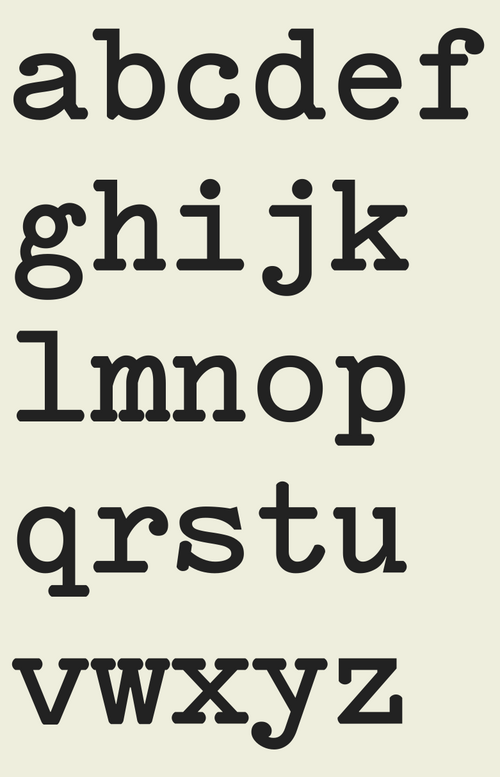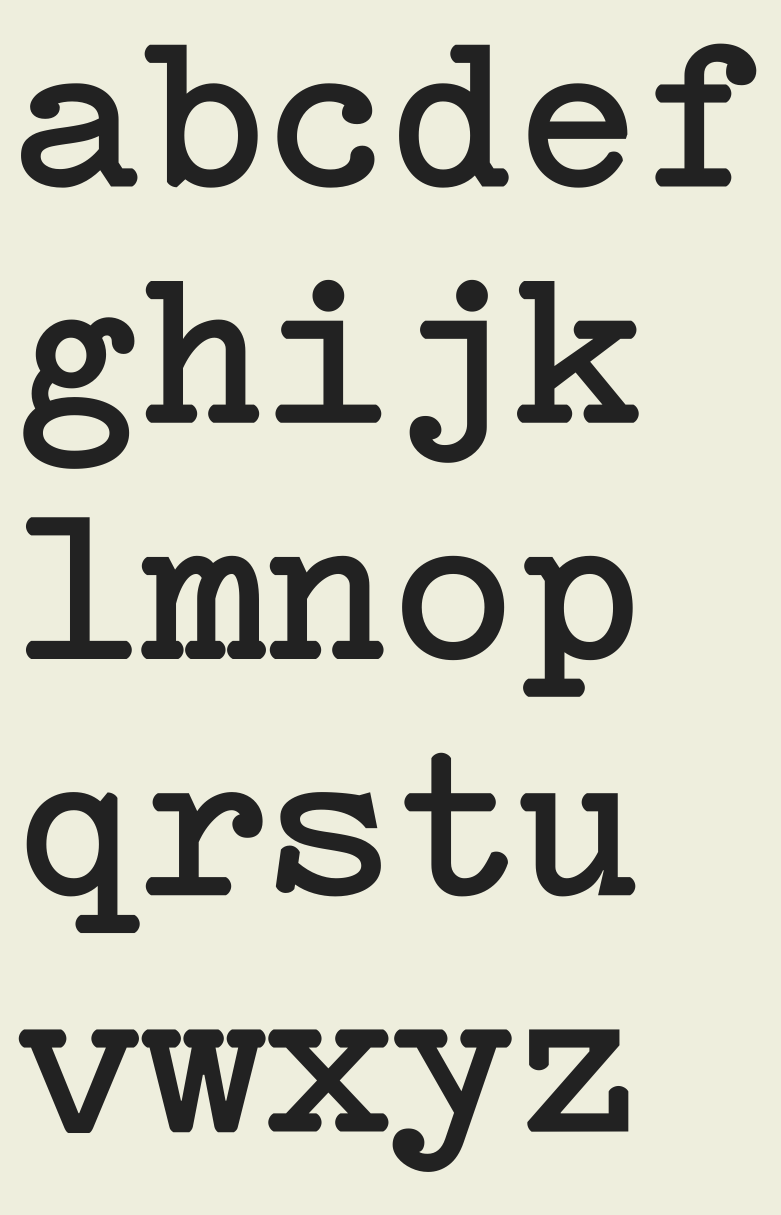
Added lower case to Typewriter B!
I added the lower case to the Typewriter B font, and regularised quite a few other things. Give it a spin!
Typewriter B Font
A typewriter font
| Author | David Jones (CubicType) |